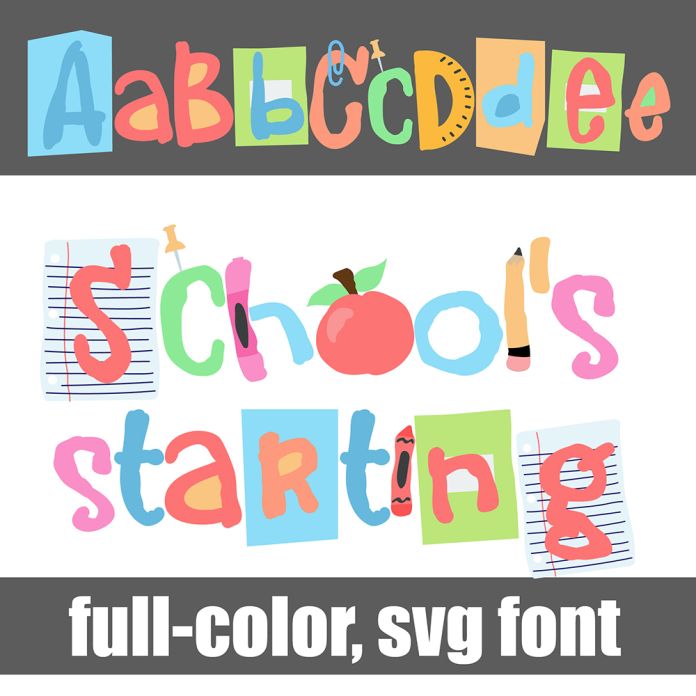
This full-color font features school supplies on youthful, rainbow colored lettering. There is an alt case with additional colors you can access through your system's character map. This font works best for titles, displays, posters and more. Please note color fonts will show as black in non compatible programs. This font type is compatible with Silhouette Studio.